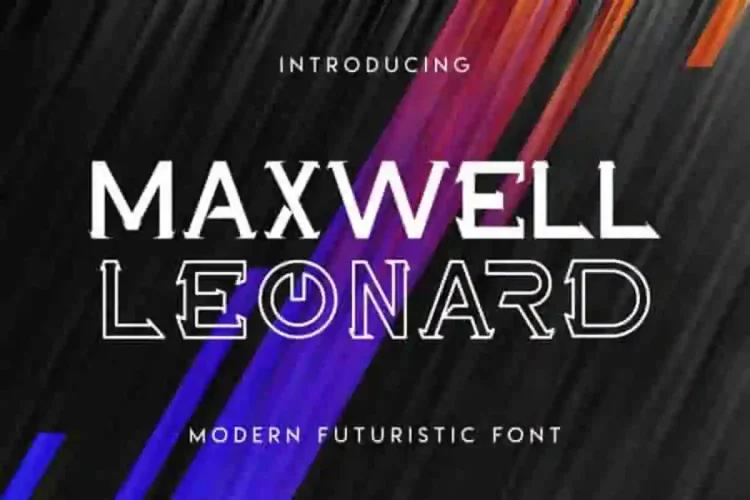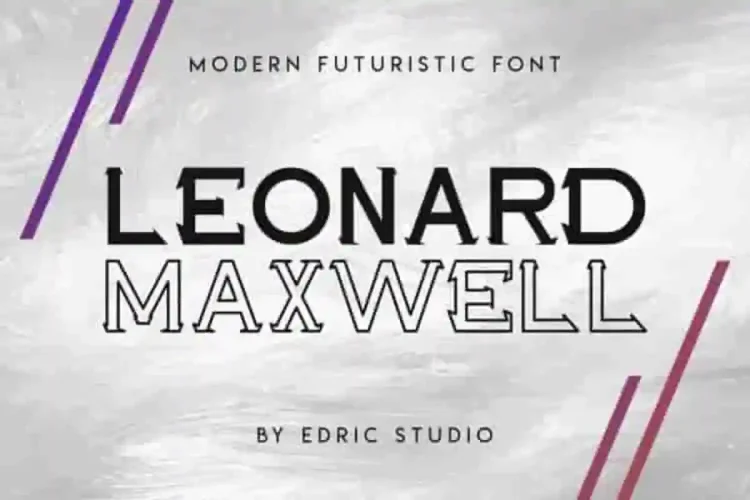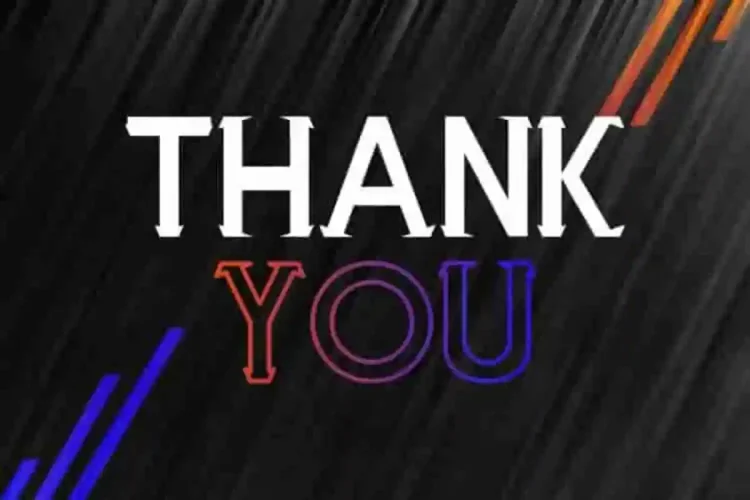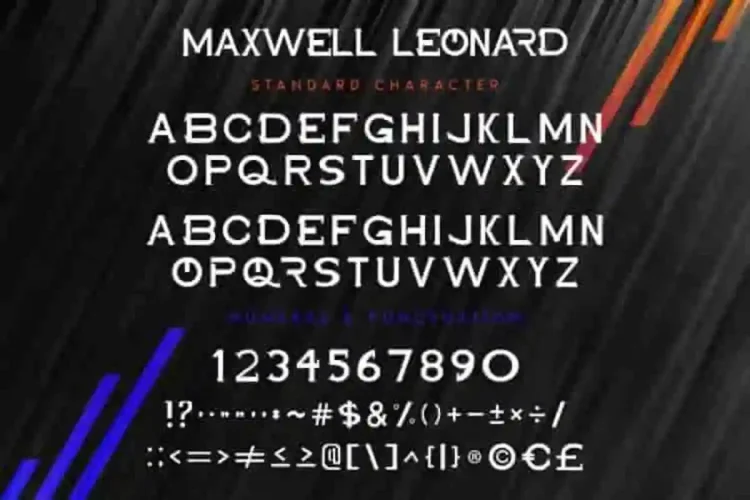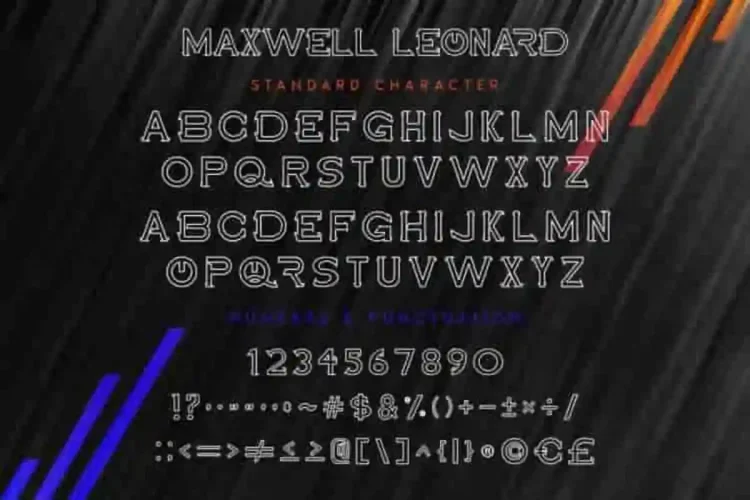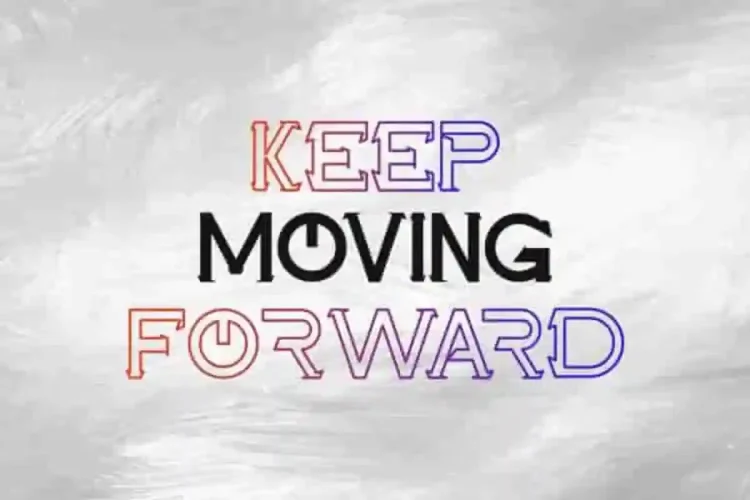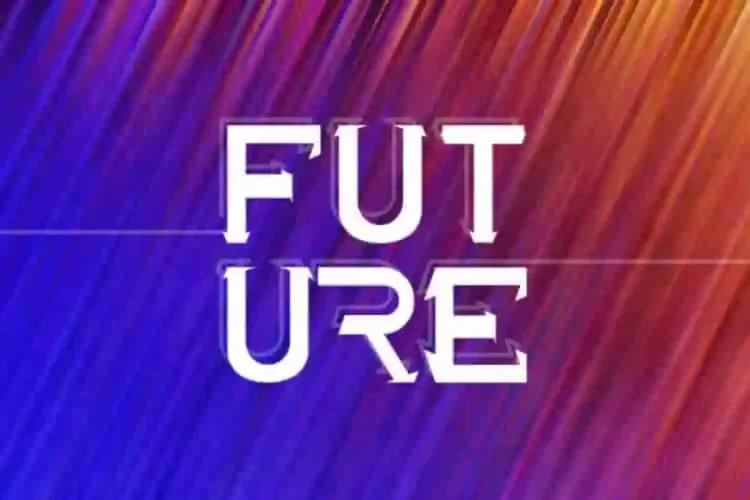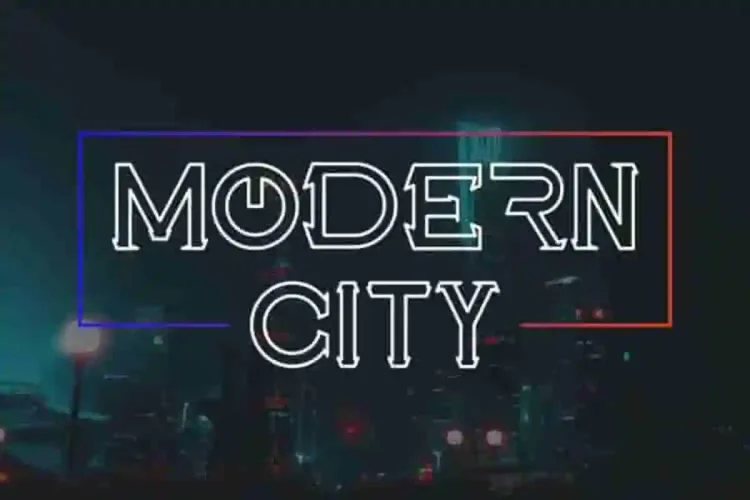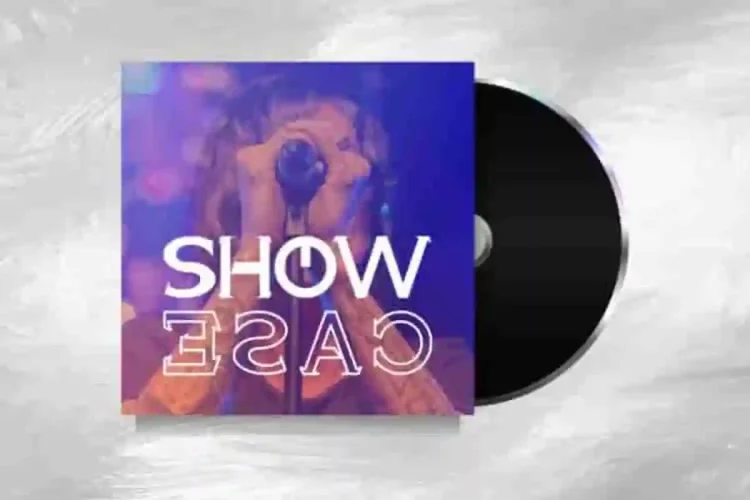
Maxwell Leonard Sans Serif Font Duo
Today we are going to present one of our latest font. Introducing : Maxwell Leonard Font
This new font is a new modern font, which has a unique sans serif style. With its style you can explore many industries and designs categories including and not limited to : Startup, technology, real estate, finance, marketing, science, space, etc. With an extendend licenses you can create anything you want : Branding (logo, stationery, bizcard, head letter, folder etc), promotions stuff (flyer, brochure, postcard etc), Digital marketing (Banner, Ads, cover etc), Personal Invitation, Magazine, Website etc.
Maxwell Leonard Sans Serif Font helps your work stand out from the crowd. With your creativity, there’s no limit using with this font.